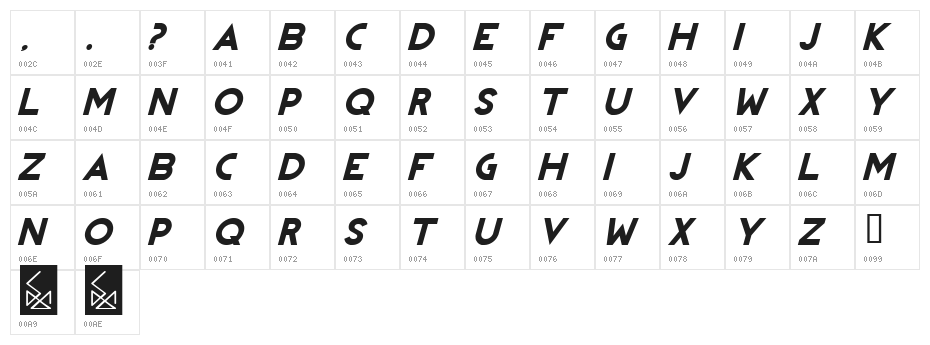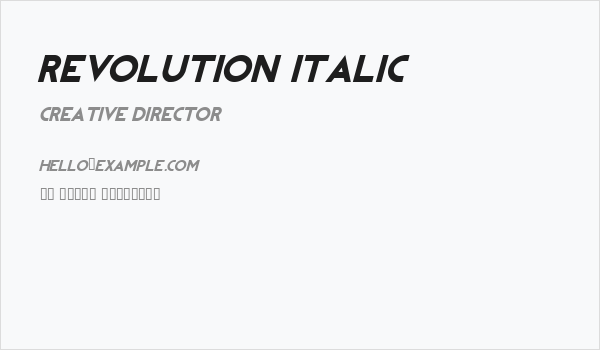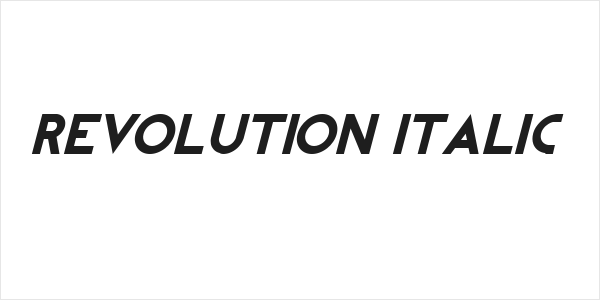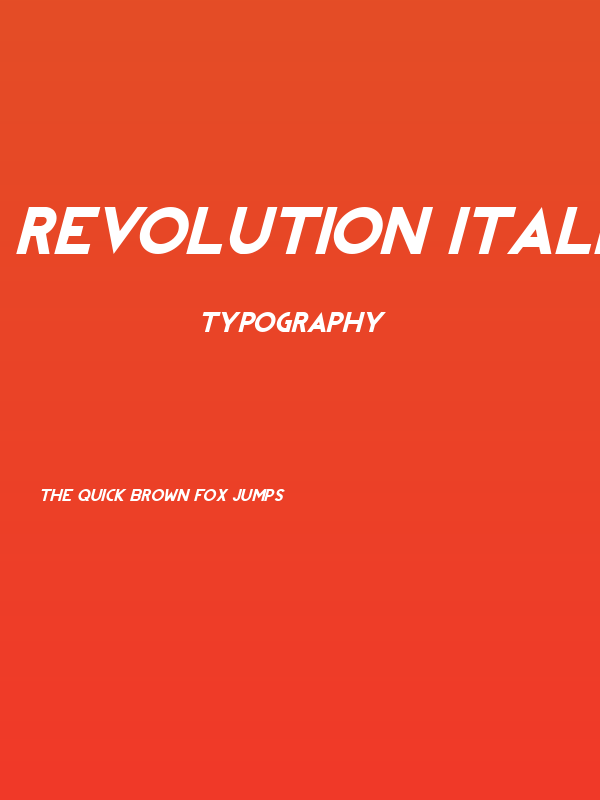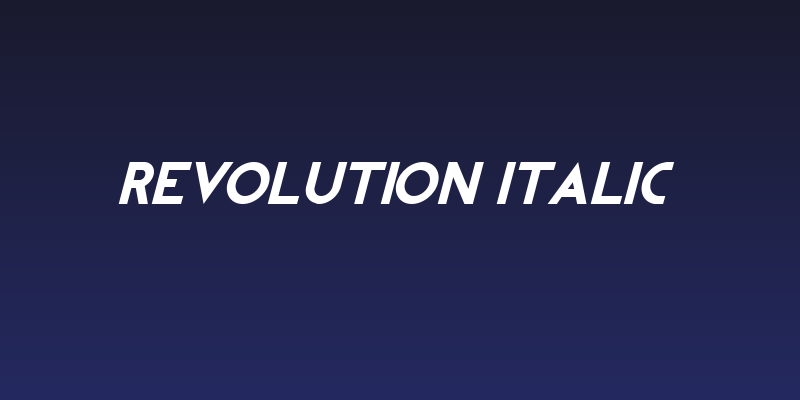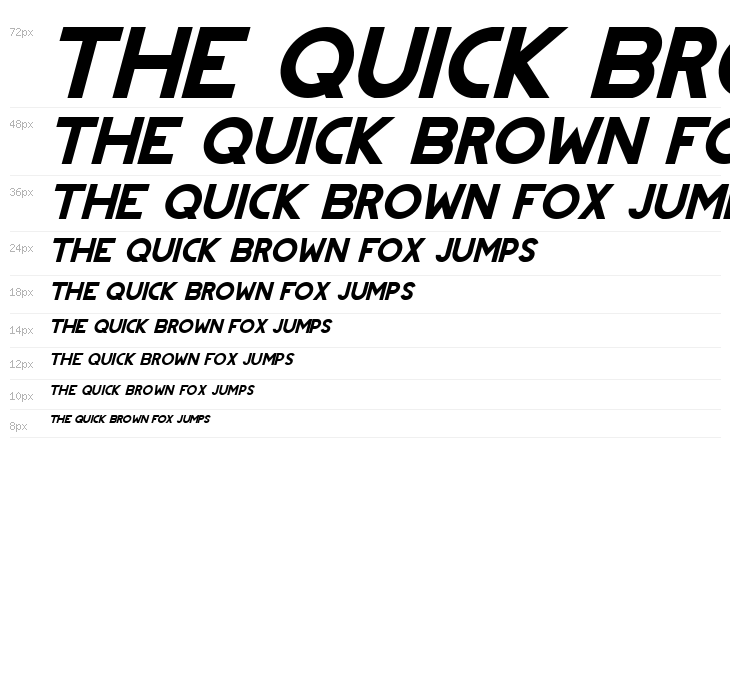
REVOLUTION Italic Font
REVOLUTION Italic Description
This font features a bold and dynamic italic style, characterized by its strong, slanted letters that convey a sense of movement and energy. The uppercase letters are designed with a consistent stroke width, giving them a modern and sleek appearance. The font maintains a uniformity in its letterforms, with slightly rounded edges that soften its overall look. The spacing between characters is tight, enhancing its compact and impactful presence. This font is well-suited for creating attention-grabbing headlines or titles, where a bold statement is desired.